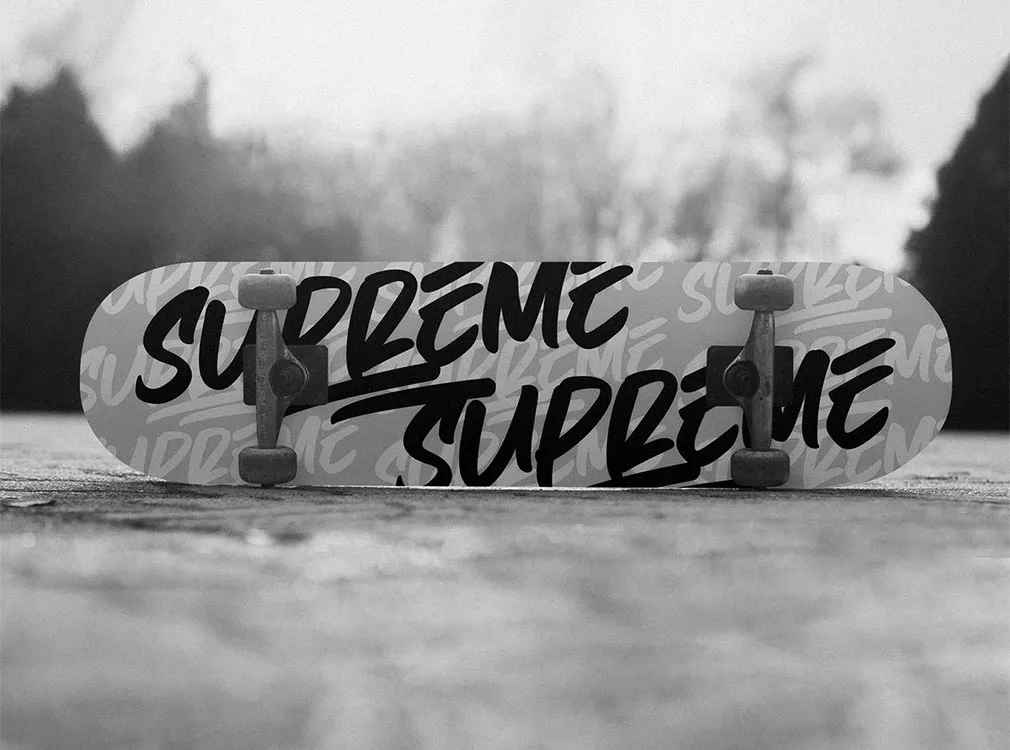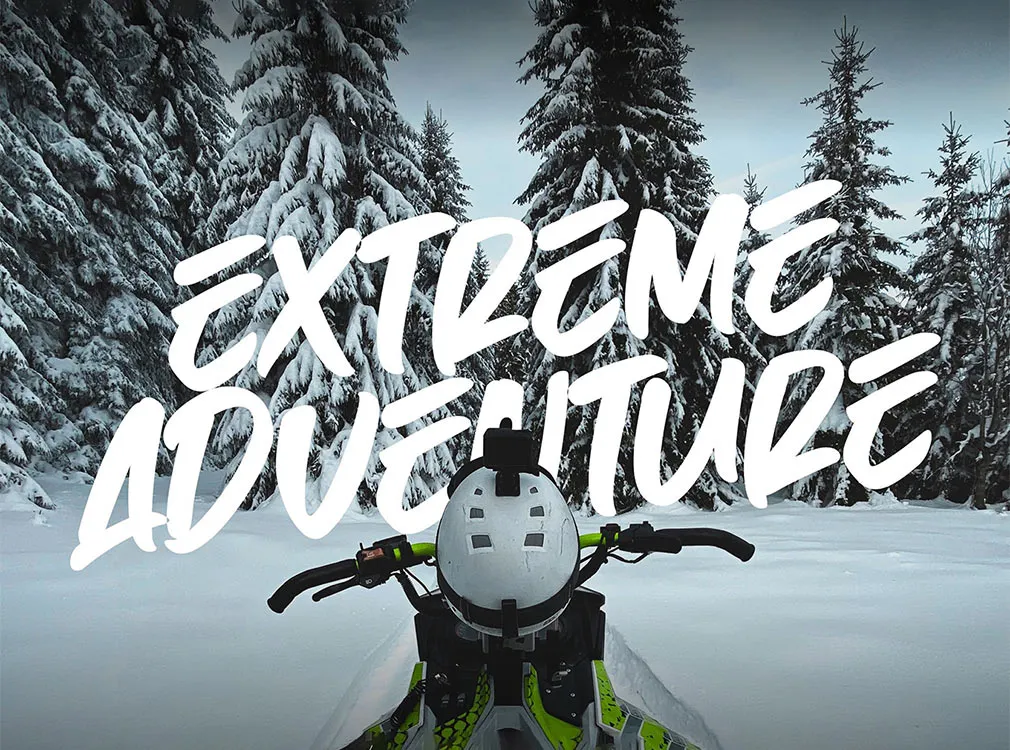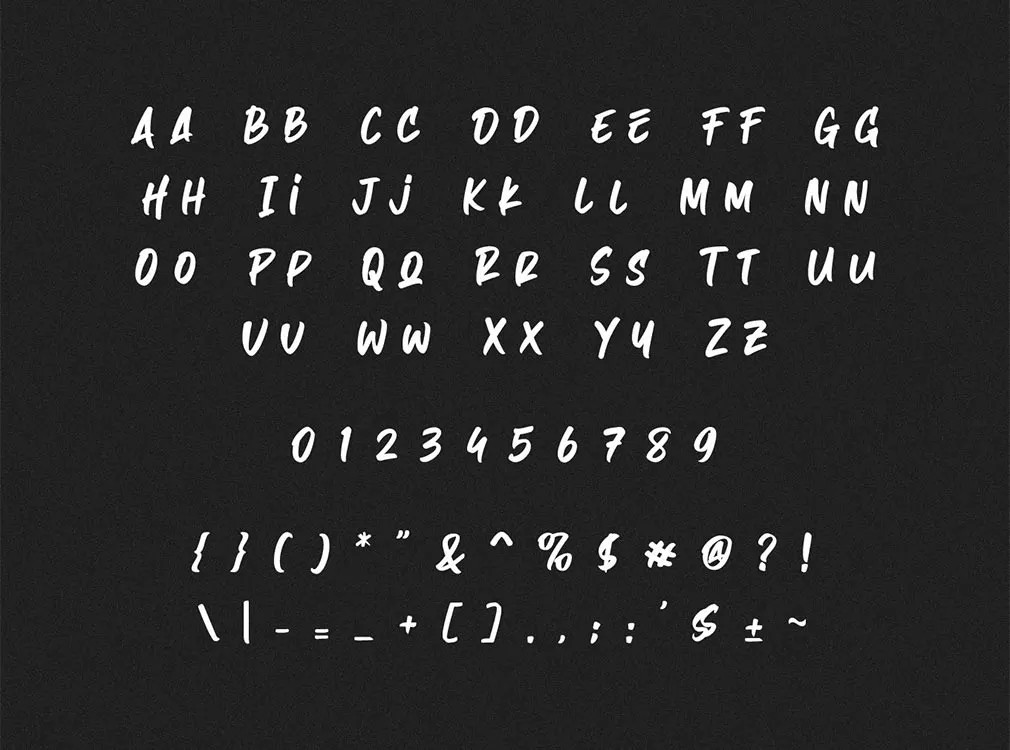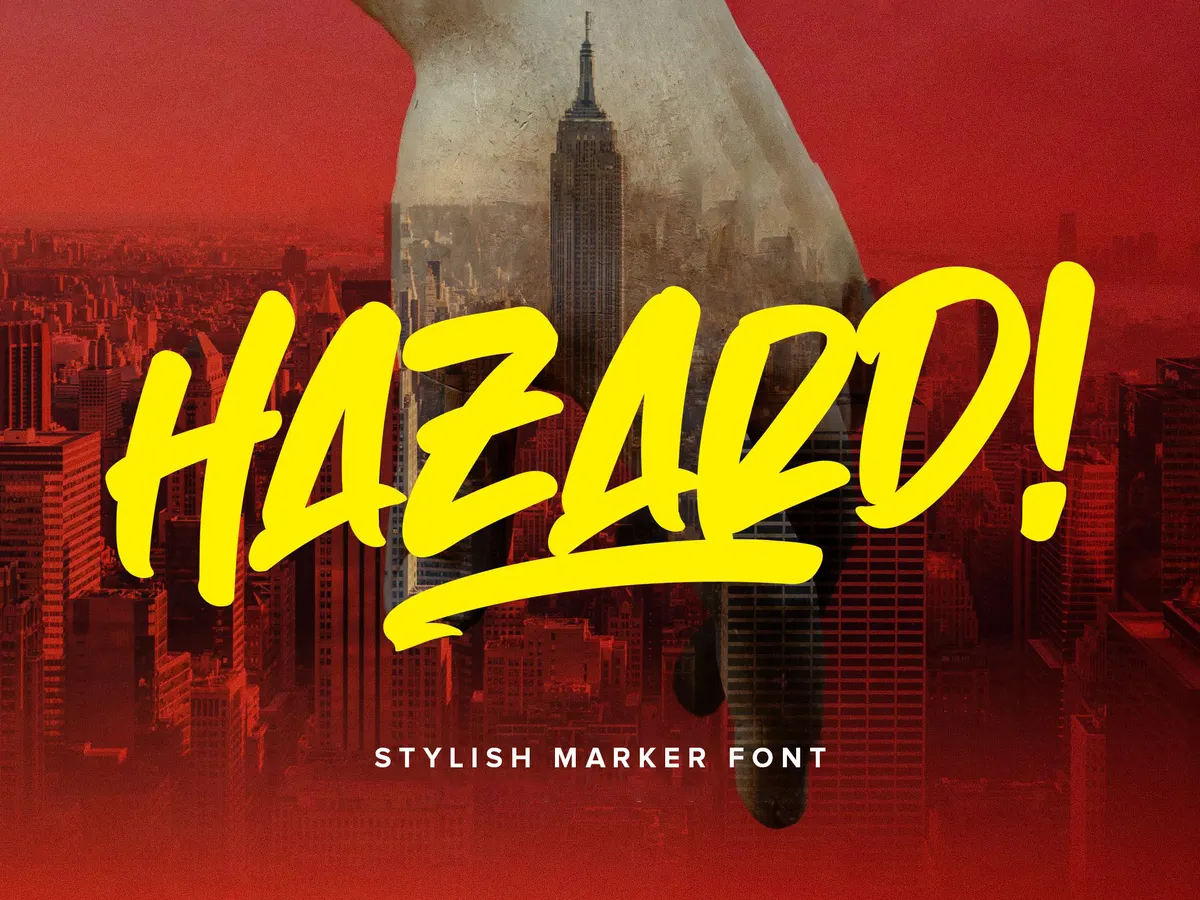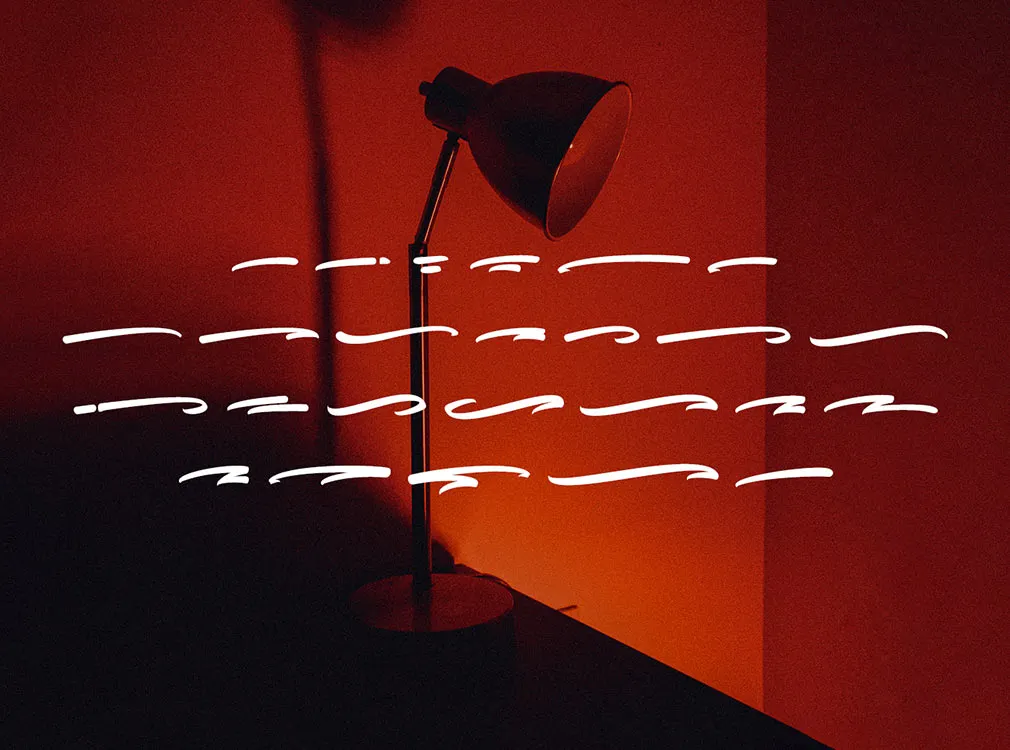
Hazard Marker Font
Powerful handwriting font is able to spice up any composition, especially the playful marker font! Each stroke is powerful and unique the characteristics your design may possess as well.
Hazard is a smooth brush font, having its own uniqueness and providing a dynamic yet pleasant smoothness. It is suitable for all design projects such as inspirational quotes for poster designs, branding, promotional materials, logos, and product packaging. The bonus swashes, coming in this set as well, will enhance the epicness of the inscription and add some highlights to it. Give it a try!